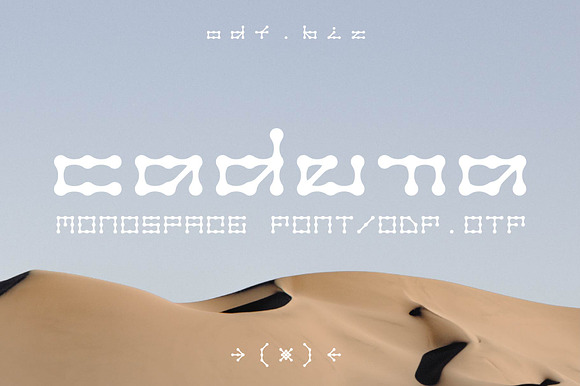
CADENA [FONT] O$F
Cadena - monospace display font: 1$ by onedollarfamily.biz
- Cadena Regular
CADENA [FONT] O$F by ZIEBA fits naturally into Branding, posters, packaging, typography.